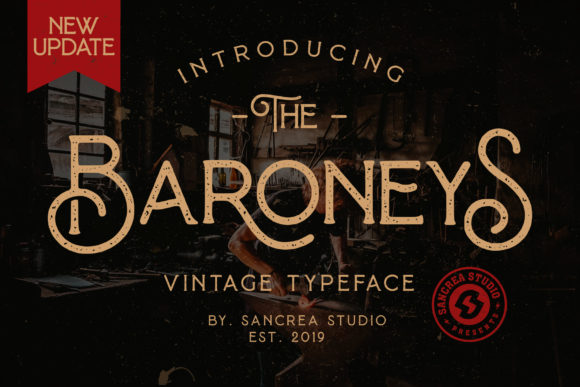
Step into the realm of timeless elegance with Baroneys, a vintage display font that captures the essence of classic typography. Its meticulously crafted characters exude an air of sophistication and charm, reminiscent of an era where artistry and craftsmanship reigned supreme.
With its distinct serif strokes and graceful curves, Baroneys adds a touch of vintage charm to any project. Each letterform is a work of art, carefully designed to evoke a sense of nostalgia and timeless appeal. Whether you're creating a logo, branding materials, or eye-catching headlines, Baroneys will elevate your designs with its undeniable presence.
Beyond its vintage allure, Baroneys is a versatile font that adapts seamlessly to a wide range of design styles. Its classic aesthetic blends effortlessly with modern layouts, creating a harmonious balance between the old and the new. From elegant wedding invitations to retro-inspired posters, Baroneys has the versatility to transform your creative visions into captivating realities.
Unleash your creativity and embark on a typographic journey with Baroneys. Let its vintage elegance inspire your designs and captivate your audience with a font that speaks volumes without uttering a single word. Whether you're a seasoned designer or just starting out, Baroneys will become your trusted companion, adding a touch of timeless beauty to all your creative endeavors.
Dive into the world of Baroneys today and experience the magic of vintage typography. Let its classic charm elevate your designs and create a lasting impression that will stand the test of time.